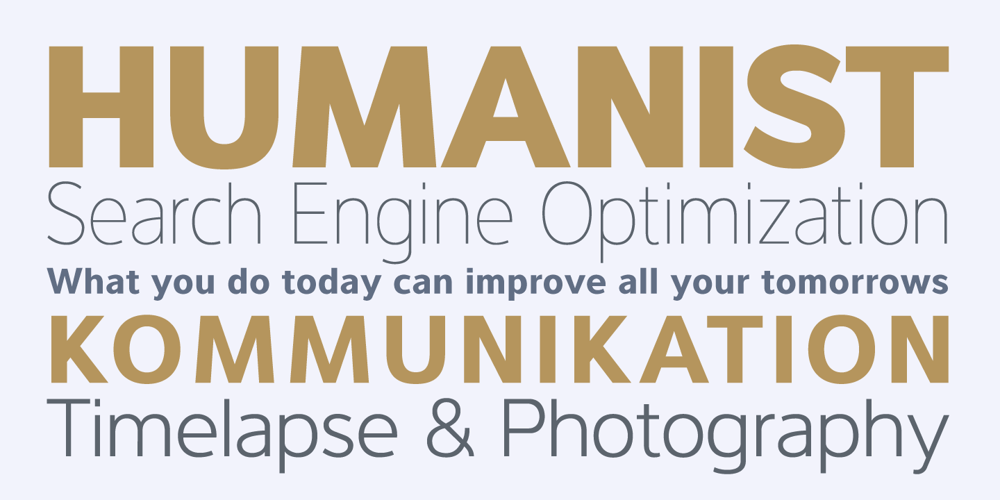
Interval Sans Pro Font Family was designed by published by Mostardesign. Interval Sans Pro contains 26 styles and family package options. This font family is a pratical choice when you need a contemporary sans serif for text typography, headlines, signage or brands creation. The strong familial relationships between all the styles and weights make it a serviceable choice for large graphic design projects that require versatility with consistency. INTERVAL SANS PRO is available in 7 weights with corresponding italics and 2 styles.